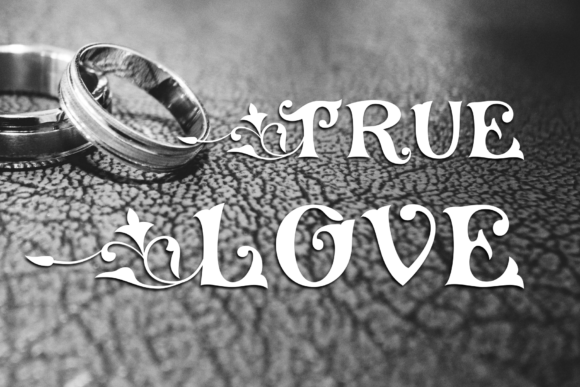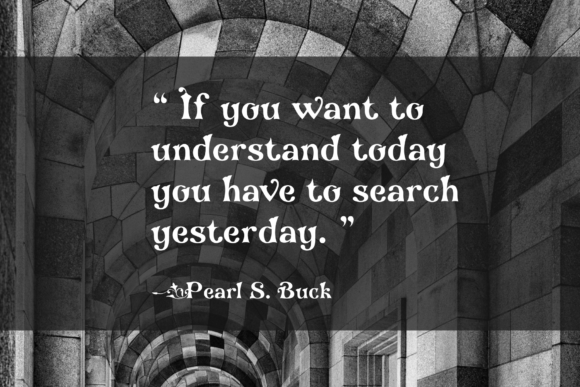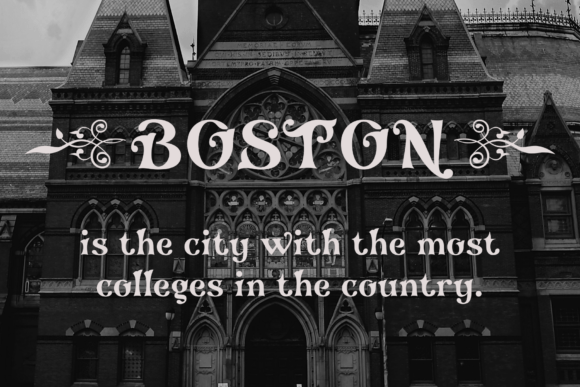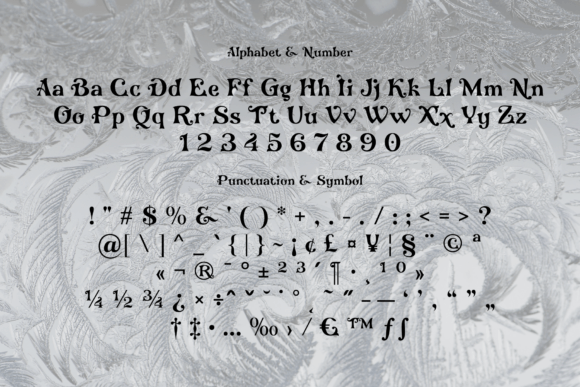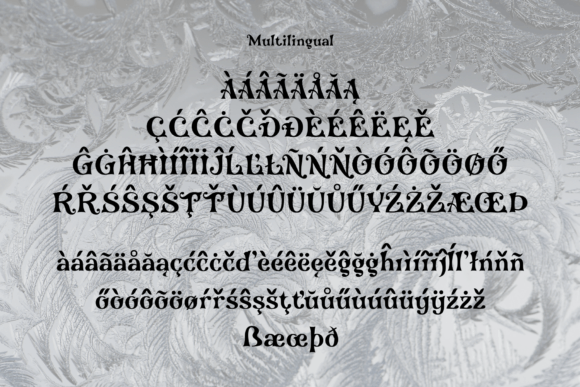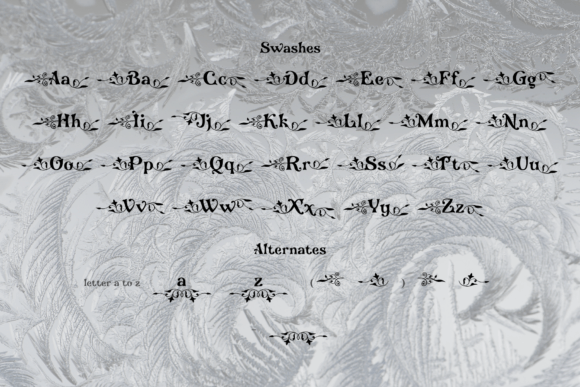
Introducing Benevolent: The Ultimate Vintage Font for Creative Projects
Are you a designer or crafter looking for a unique and versatile font to elevate your creative projects? Look no further than Benevolent, a stunning vintage font that is sure to captivate your audience. With its subtle touch and distinctive design, Benevolent is perfect for a wide range of applications, from invitations and posters to magazines and corporate identity.
The Charm of Benevolent
Benevolent is a beautifully crafted font that exudes a sense of elegance and sophistication. Its vintage charm is perfect for designers and crafters who want to add a touch of nostalgia to their work. The font’s subtle touch and unique design make it incredibly versatile, allowing you to use it for a variety of projects, from formal invitations to eye-catching posters.
Key Features of Benevolent
So, what makes Benevolent such a great font? Here are some of its key features:
- PUA Encoding: Benevolent is PUA encoded, which means you can access all glyphs and swashes effortlessly. This makes it easy to use the font for a wide range of projects, without having to worry about complicated encoding issues.
- Versatility: Benevolent is an incredibly versatile font, perfect for any type of project. Whether you’re designing an invitation, poster, magazine, or corporate identity, Benevolent is the perfect choice.
- Unique Design: Benevolent’s unique design sets it apart from other fonts. Its subtle touch and distinctive style make it perfect for designers and crafters who want to add a touch of elegance to their work.
Why Choose Benevolent?
So, why should you choose Benevolent for your next project? Here are just a few reasons:
- Elegance: Benevolent adds a touch of elegance to any project. Its vintage charm and sophisticated design make it perfect for formal invitations, corporate identity, and other applications where you want to make a good impression.
- Flexibility: Benevolent is incredibly flexible, making it perfect for a wide range of projects. Whether you’re designing a poster, magazine, or website, Benevolent is the perfect choice.
- Easy to Use: Benevolent is easy to use, even for designers and crafters who are new to working with fonts. Its PUA encoding makes it easy to access all glyphs and swashes, and its unique design makes it easy to create stunning text-based designs.
- Experiment with Different Sizes: Benevolent looks great in a variety of sizes, from small captions to large headlines. Experiment with different sizes to find the one that works best for your project.
- Play with Swashes: Benevolent’s PUA encoding makes it easy to access a range of swashes and glyphs. Play around with these to add a touch of elegance to your design.
- Combine with Other Fonts: Benevolent looks great on its own, but it can also be combined with other fonts to create a unique and eye-catching design.
In conclusion, Benevolent is a stunning vintage font that is perfect for designers and crafters who want to add a touch of elegance to their creative projects. Its unique design, versatility, and PUA encoding make it an incredibly flexible font that can be used for a wide range of applications. Whether you’re designing an invitation, poster, magazine, or corporate identity, Benevolent is the perfect choice.